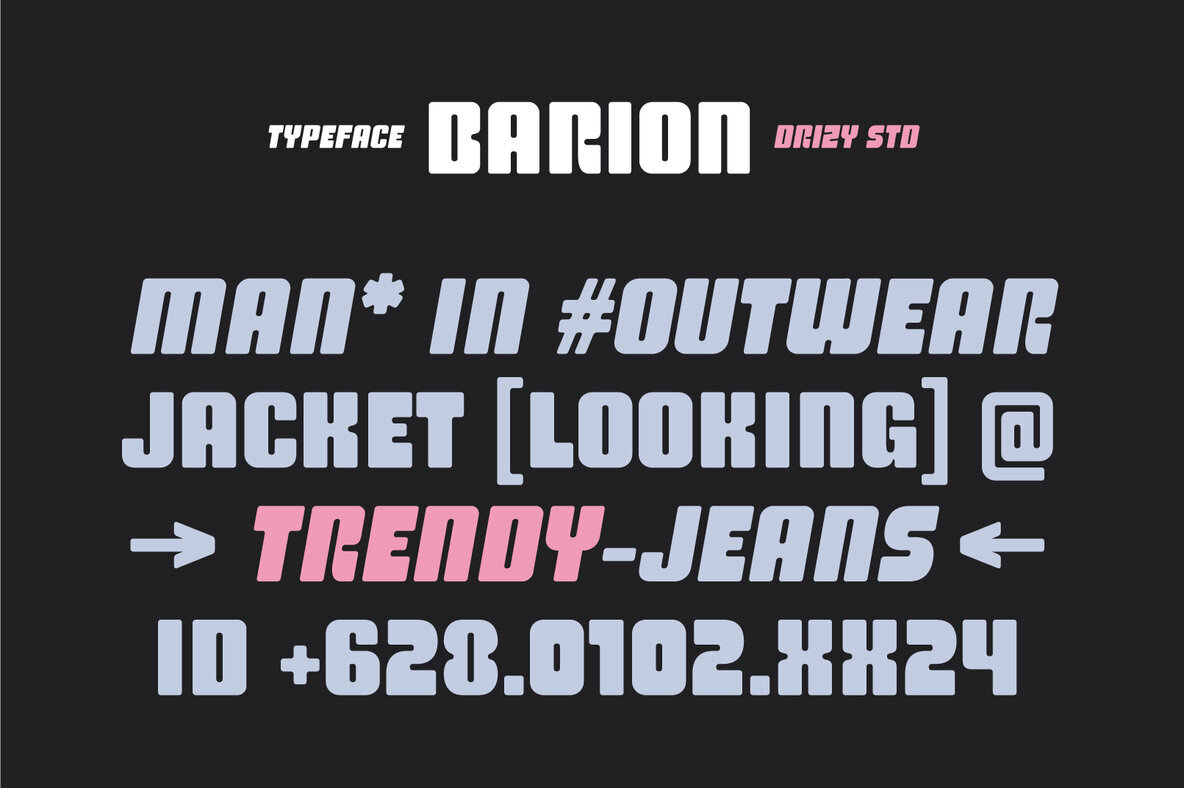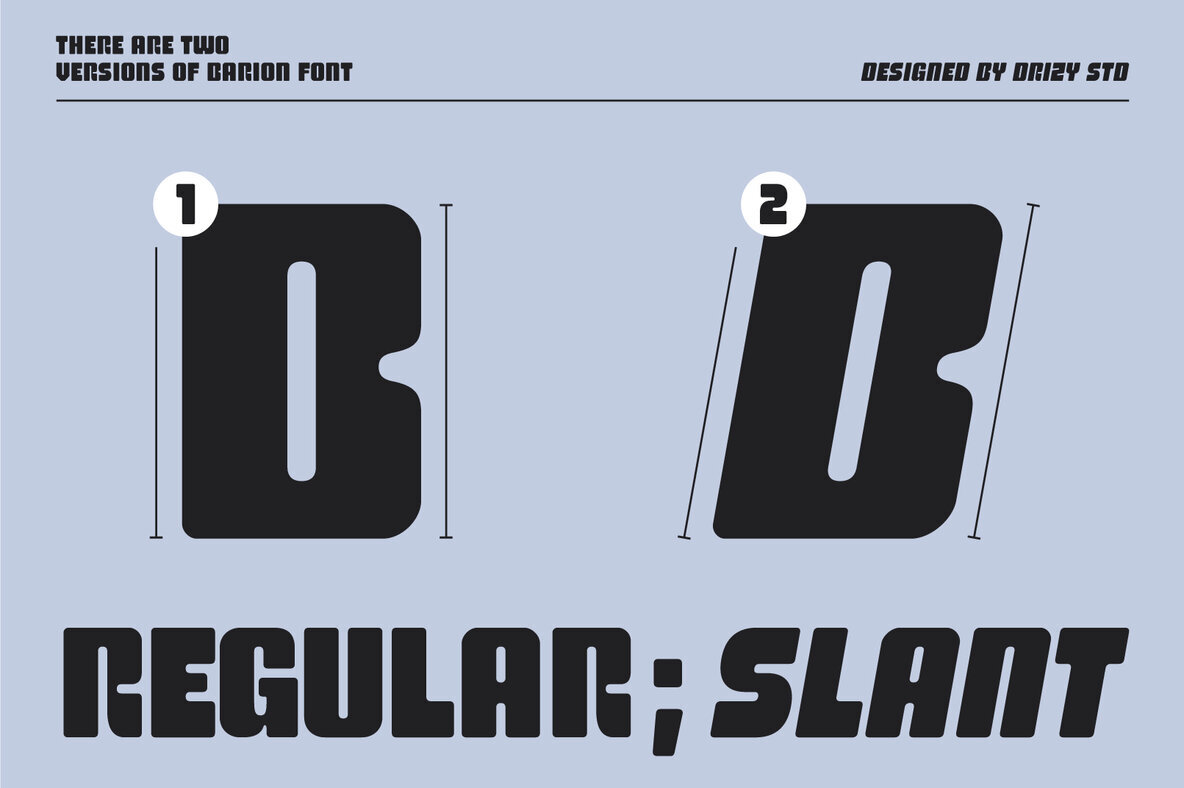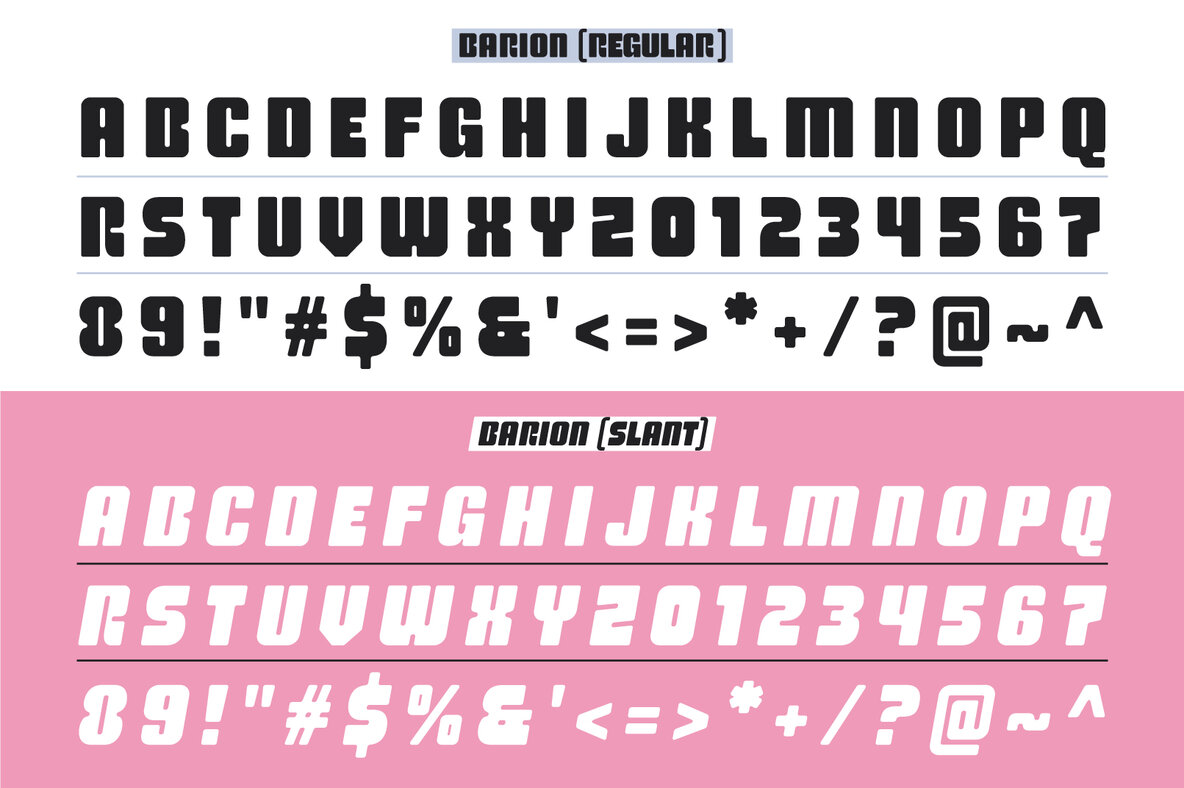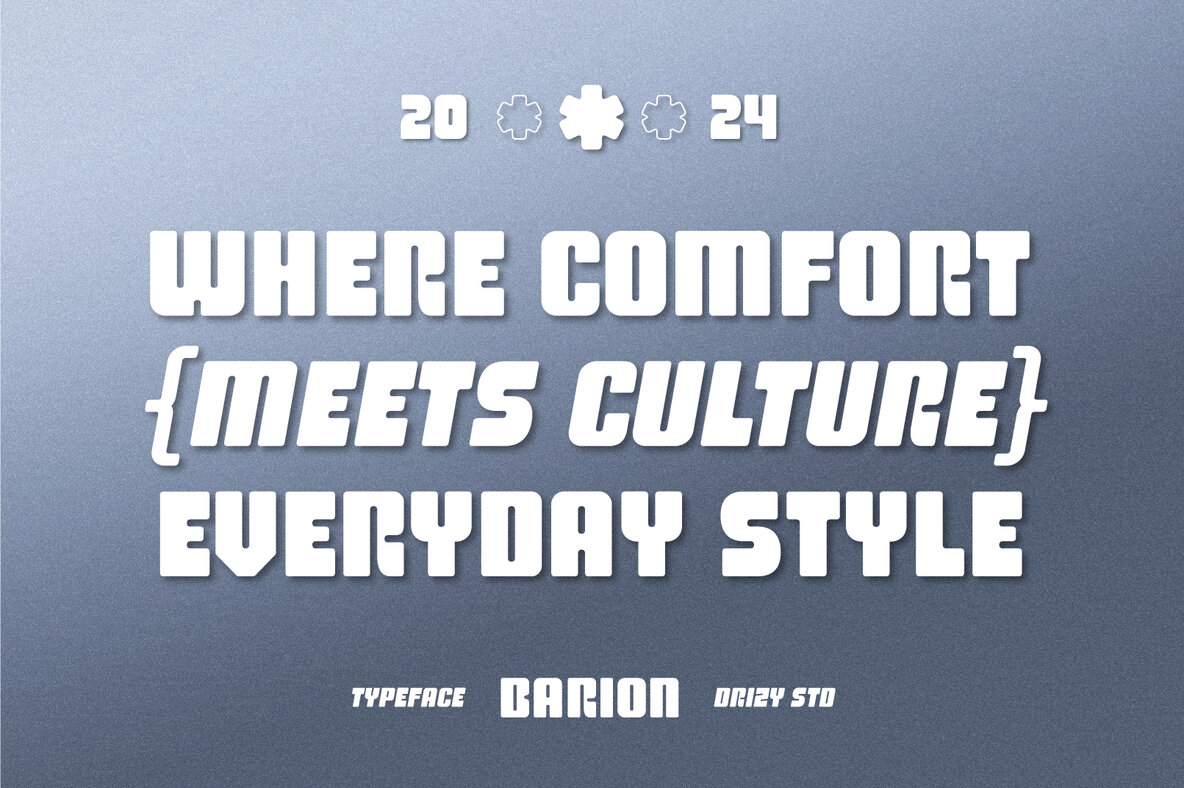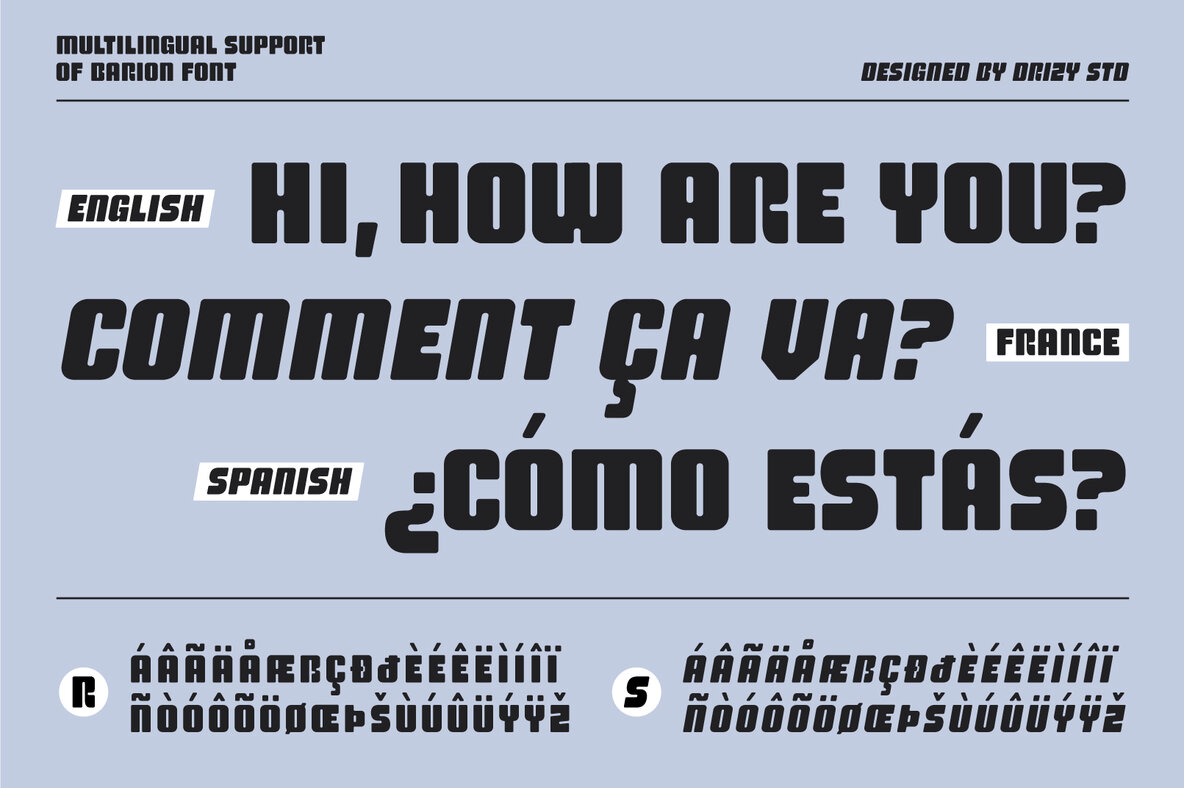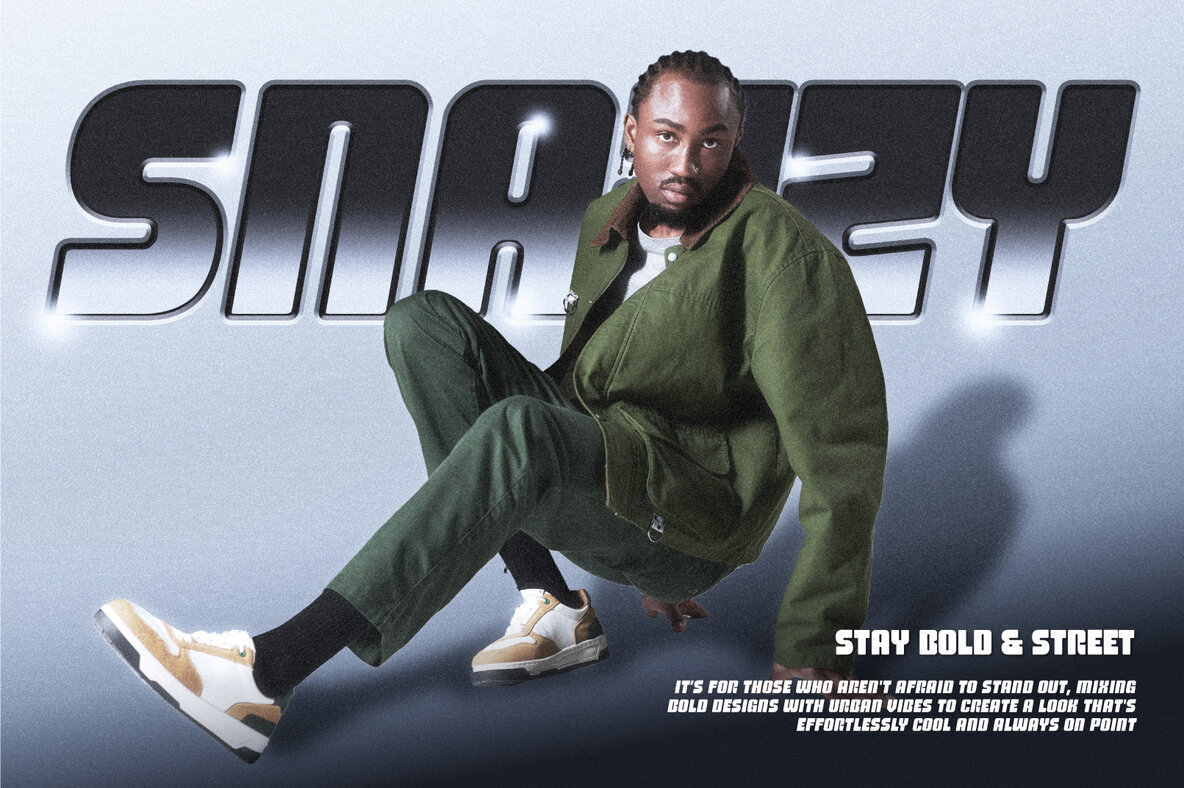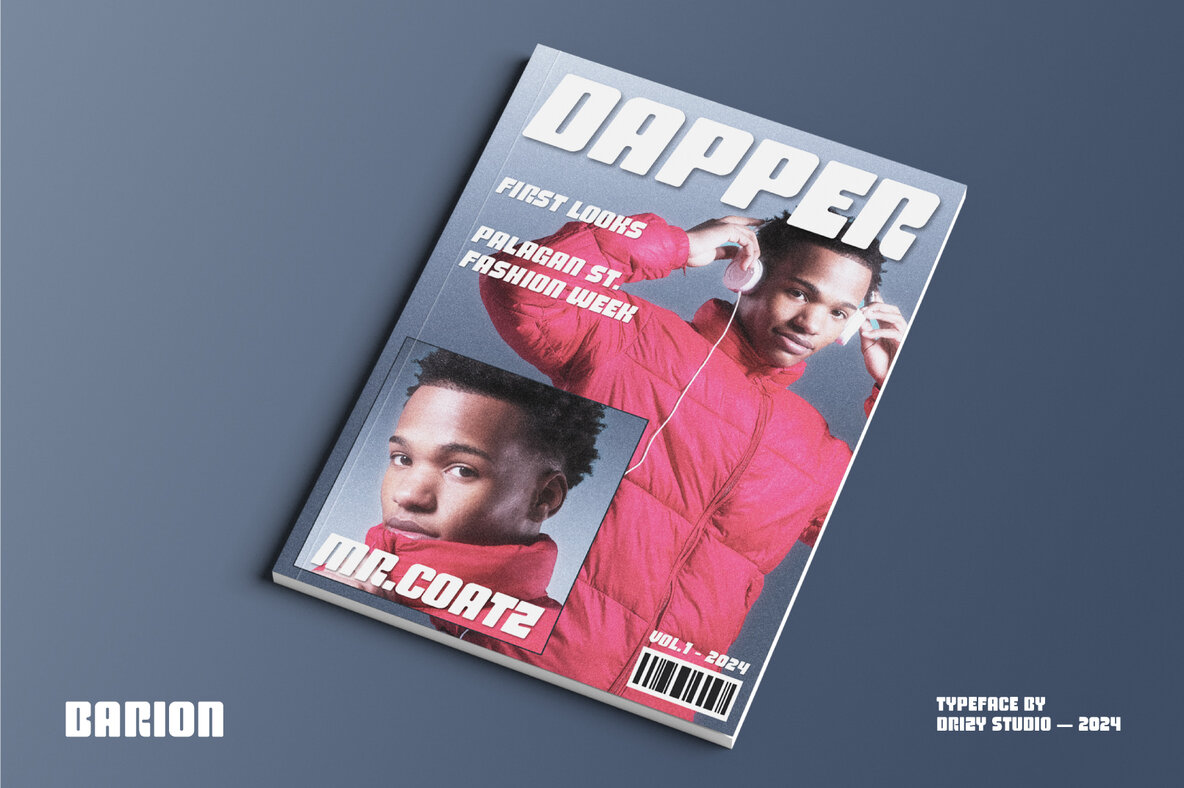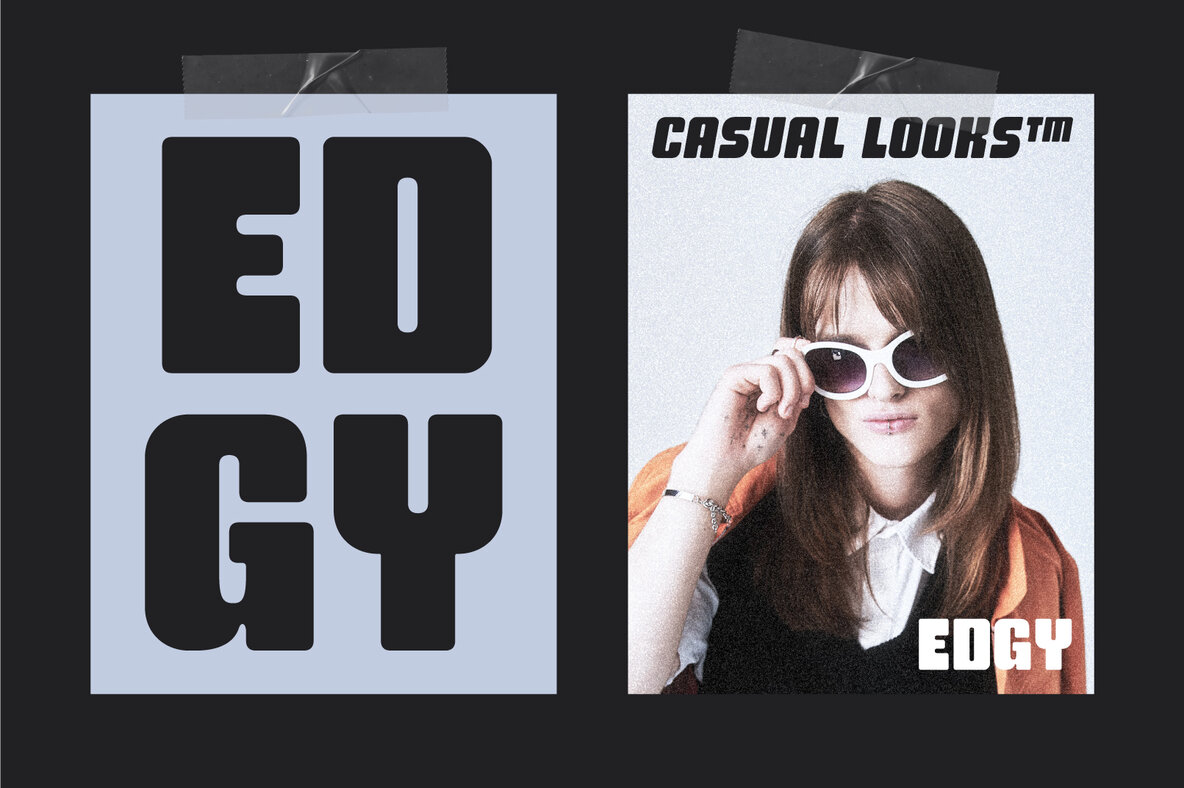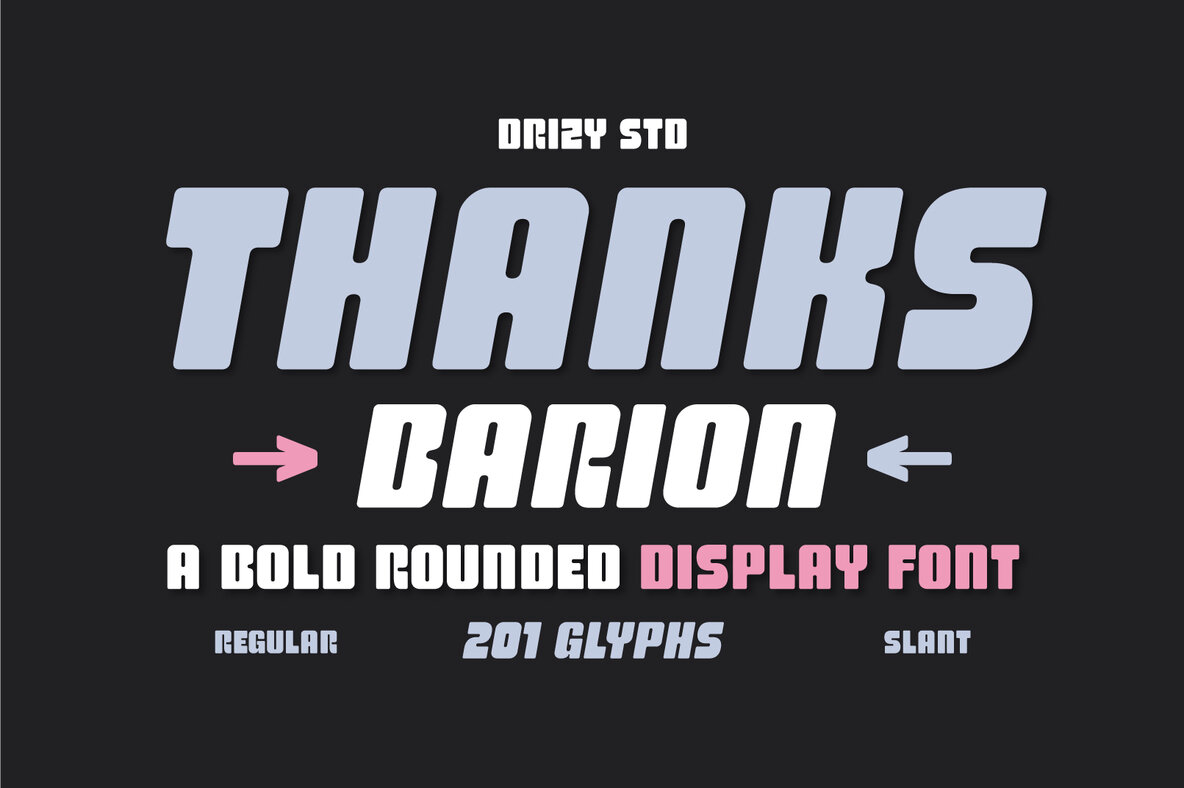
Barion Font
Barion is a dynamic and versatile font that perfectly complements any Winter Streetwear theme. Its bold, rounded edges create an inviting and approachable aesthetic while maintaining a modern and stylish flair. This font is ideal for use in headlines, logos, and apparel branding, capturing the essence of street style with a seasonal twist. Barion merges casual elements with a touch of winter sophistication, making it a great choice to enhance your designs with its cool and inviting appearance.
Designed to stand out, Barion includes a character set with all capital letters, punctuation, numbers, and supports multiple languages. It is available in both a regular and slanted style, offering designers flexibility and creative freedom. Whether you're working on winter-themed merchandise or crafting urban fashion statements, Barion provides endless design possibilities to infuse your projects with charm and relevance.